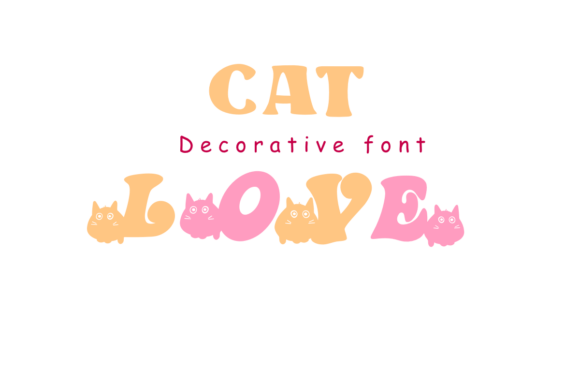
The Purrfect Touch: Introducing Cat Love Font
You know that moment when you’re working on a design project and you just can’t seem to find the right font to bring your ideas to life? You scroll through font libraries, searching for something that captures the essence of your creative vision. And then, suddenly, it hits you – a font that’s so adorable, so charming, and so full of personality that you can’t help but smile.
This is where Cat Love Font comes in – a playful, decorative font featuring a cute cat next to each letter, adding a fun and charming touch to your designs. Whether you’re designing a children’s book, a cat cafe logo, or just a simple greeting card, Cat Love Font is the perfect way to add a dash of whimsy and personality to your work. As a designer, you know how valuable it is to have a versatile font that can bring your ideas to life, and Cat Love Font is sure to become a favorite in your design arsenal.
Cat Love Font Key Features
- Font Family: Cat Love Font is a unique, hand-drawn font designed specifically for cat lovers.
- Character Set: The font includes a wide range of characters, including uppercase and lowercase letters, numbers, punctuation marks, and special characters.
- Unique Characteristics: The font features whimsical, hand-drawn illustrations of cats throughout the character set, adding a touch of playfulness and personality to any design.
Cat Love Font Review
Overall, I’m a big fan of whimsical fonts, and “Cat Love Font” is no exception. It’s perfect for anyone who wants to add a touch of playfulness to their designs. Here’s what I love about it: ✨
- It’s super cute and quirky, making it perfect for cat lovers or anyone who wants to add a lighthearted vibe to their designs.
- The font is well-designed, with clear and easy-to-read letterforms that are perfect for body text or titles.
- It’s highly customizable, with a wide range of styles and weights to choose from.
Of course, no font is perfect, and “Cat Love Font” has a few limitations: ⚠️
- The font can be a bit overwhelming if used too extensively – it’s best to use it sparingly to avoid visual fatigue.
- The font may not be suitable for formal or professional designs, as it’s a bit too playful and whimsical.
Overall, I think “Cat Love Font” is a great addition to any designer’s toolkit. It’s perfect for projects that require a lighthearted and playful touch, and it’s easy to use and customize. Just be sure to use it sparingly to avoid overwhelming your audience!
Use Cat Love Font to add a playful and whimsical touch to your designs.
Pair Cat Love Font with other playful fonts to create a unique and eye-catching look.
Use Cat Love Font for designs related to cats, such as cat-themed merchandise or cat adoption campaigns.
Cat Love Font is ideal for:
Cat-themed merchandise (t-shirts, mugs, etc.)
Cat adoption campaigns
Playful and whimsical designs